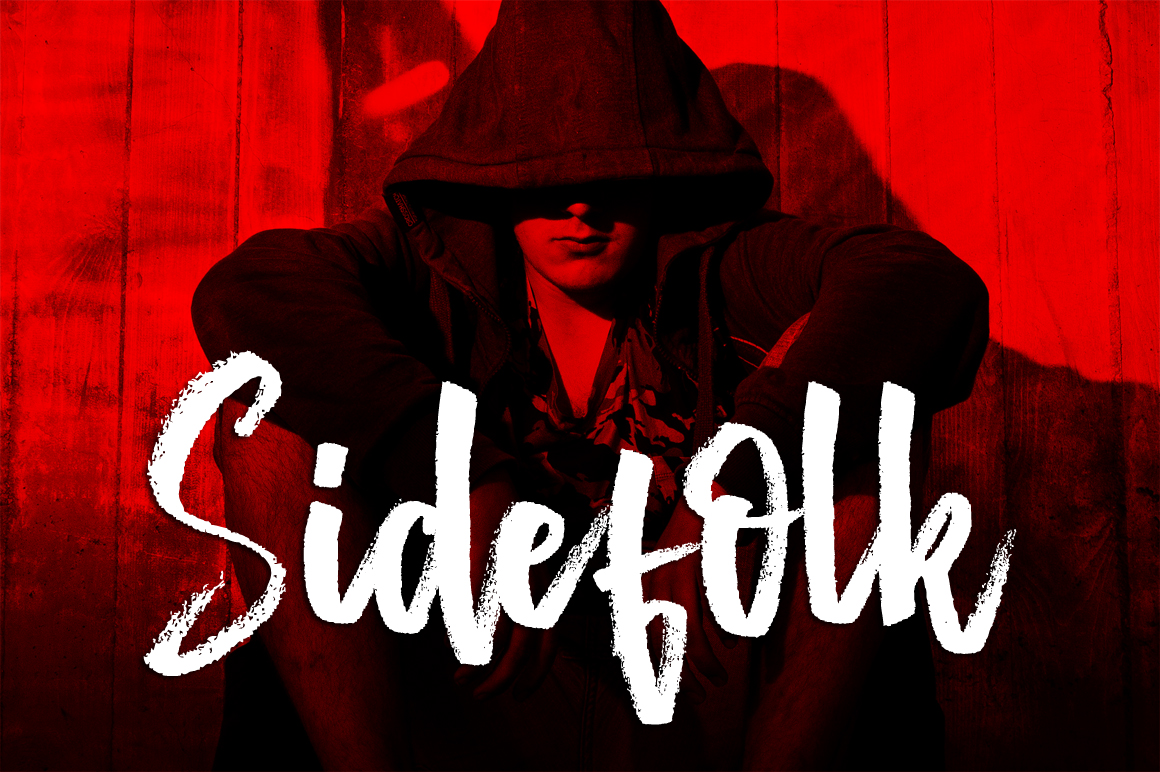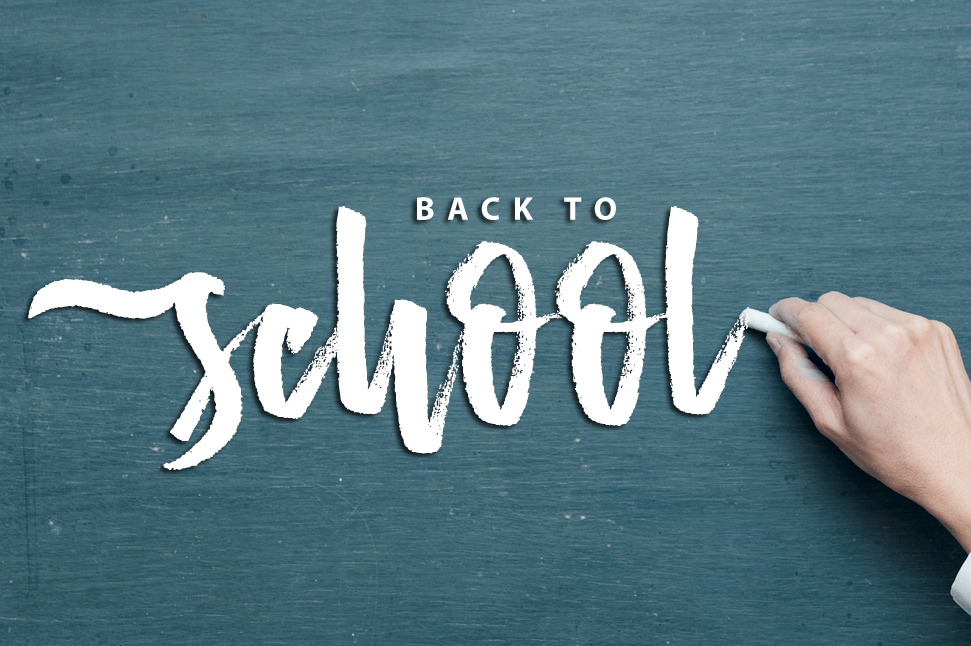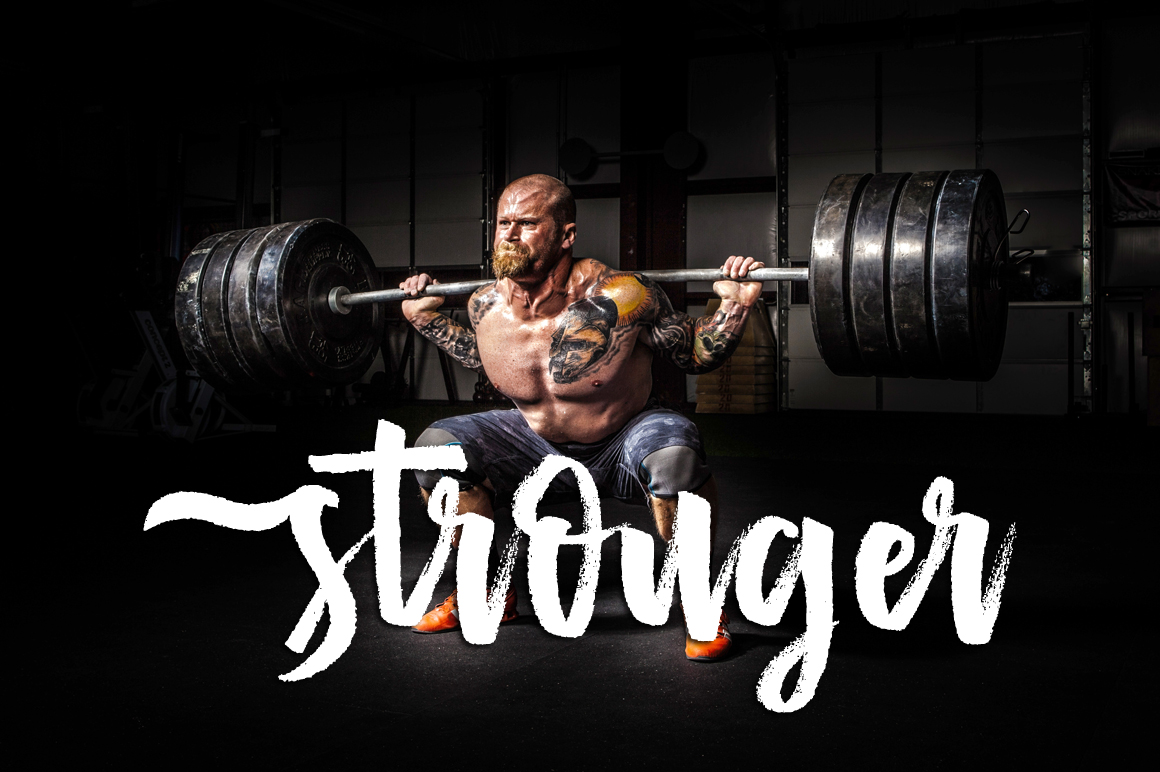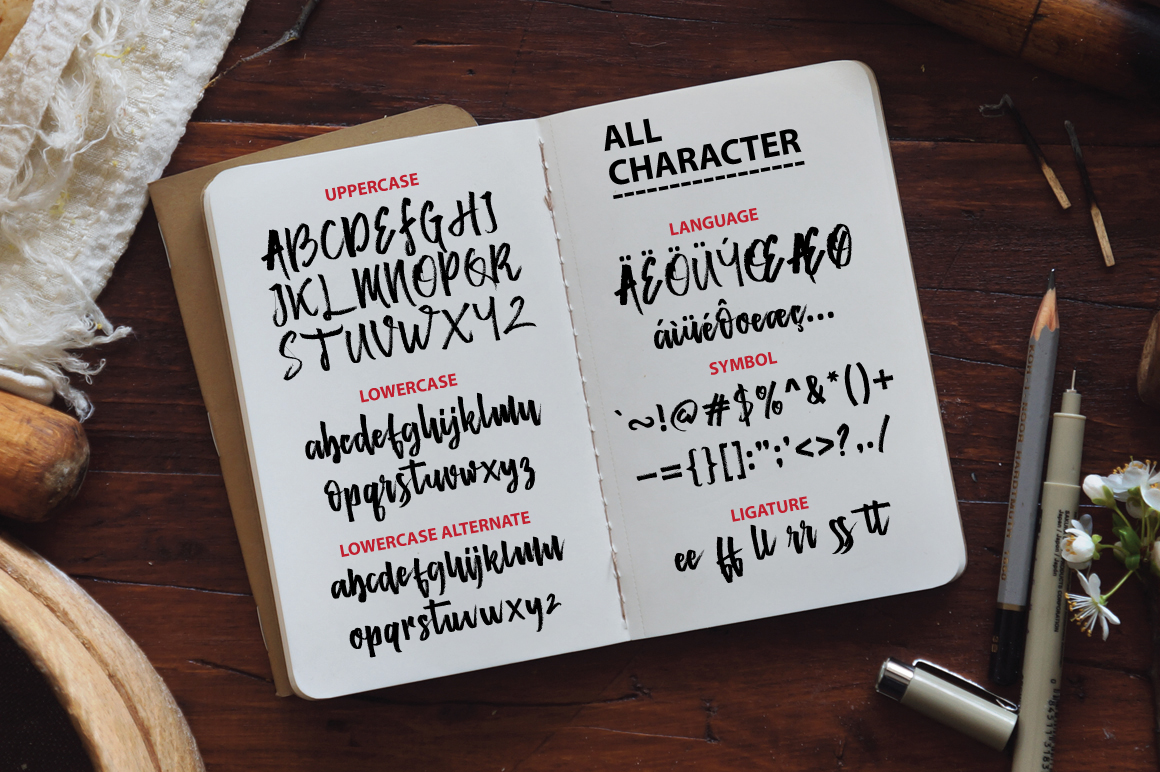
Introduction to Mister Fast Font
Mister Fast is textured brush font, perfect for accomplish a contemporary approach to design.
Mister Fast is a handmade natural script, with an irregular baseline Download Mister Fast and use in any number of applications – this is a truly remarkable font.
Key Features of Mister Fast Font
Why Choose Mister Fast Font?
Mister Fast Font offers exceptional quality and versatility, making it a valuable addition to your design toolkit. Whether you’re creating for personal projects or commercial use, Mister Fast Font delivers professional results.